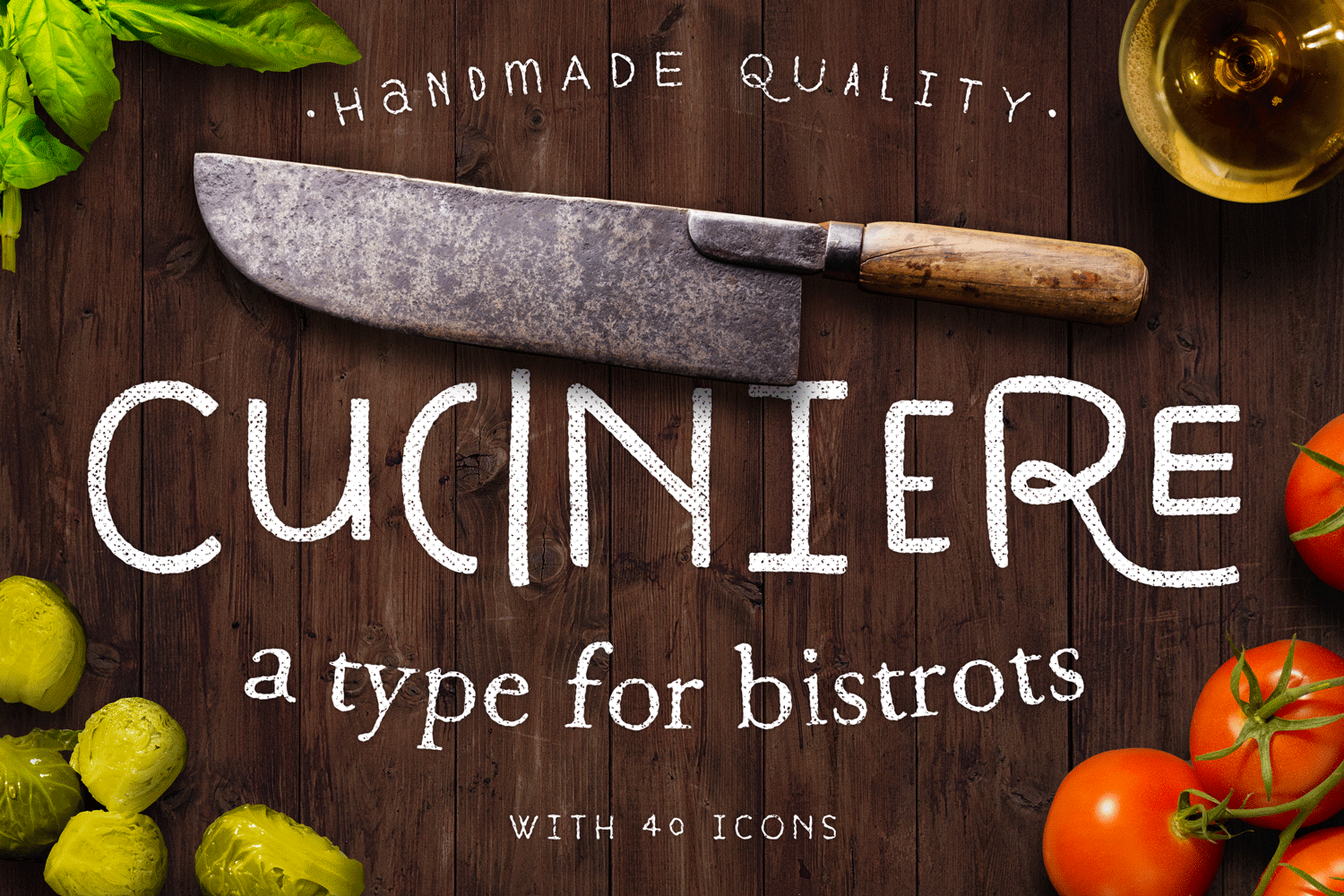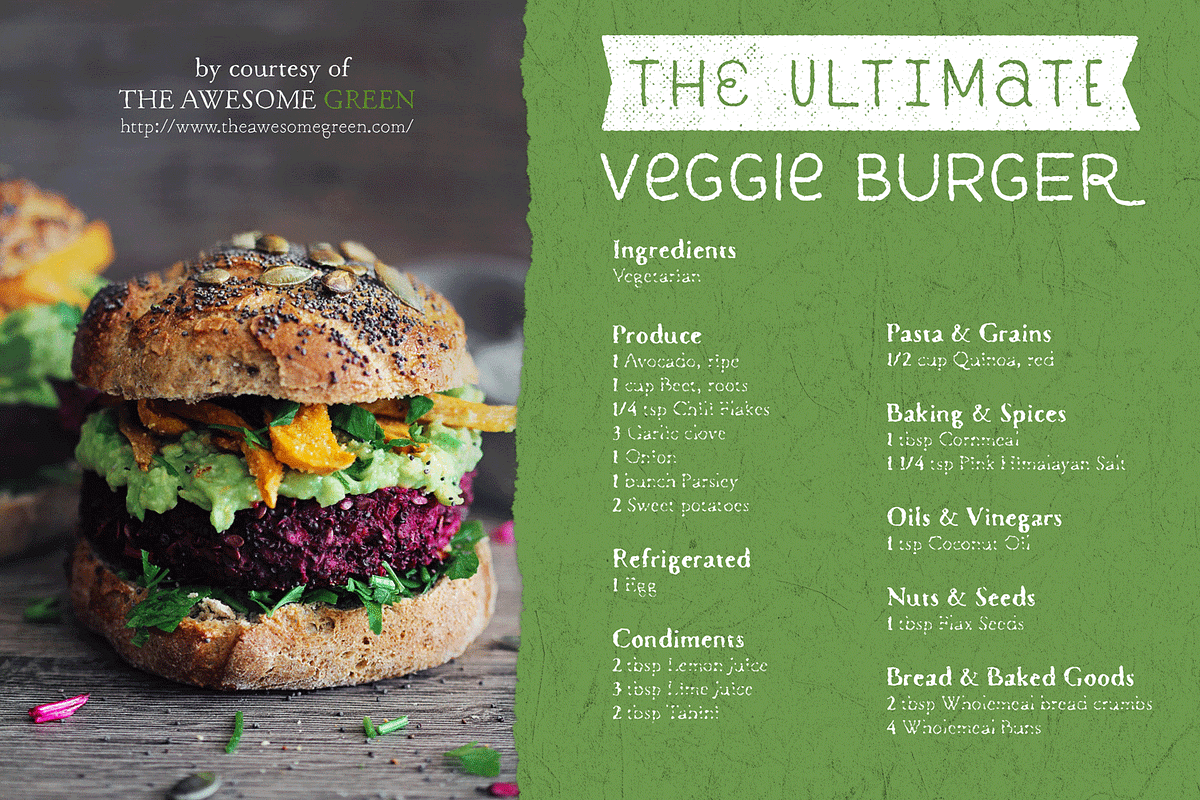
Cuciniere Font + 40 Icons (Handmade)
Hello FOOD LOVERS, this is a brand new typeface for your tasty works! It is a collection of all-caps characters mixed with some lowercase ones. It has a delightfully hand-written feel. The main features are the high customization with the stylistic alternates (Wide, Condensed and Lowercase) and type ligatures, to write words, texts or paragraphs with a unique style.
The 40 hand drawn icons about slow food, desserts, wines, pasta and more, and are made with the same brush of the font. If you're making a brand for your Café, Restaurant or Bistrot, or if you simply want to decorate your website or online recipe blog with a organic touch, then these Food Icons will be just the thing you’ll need!